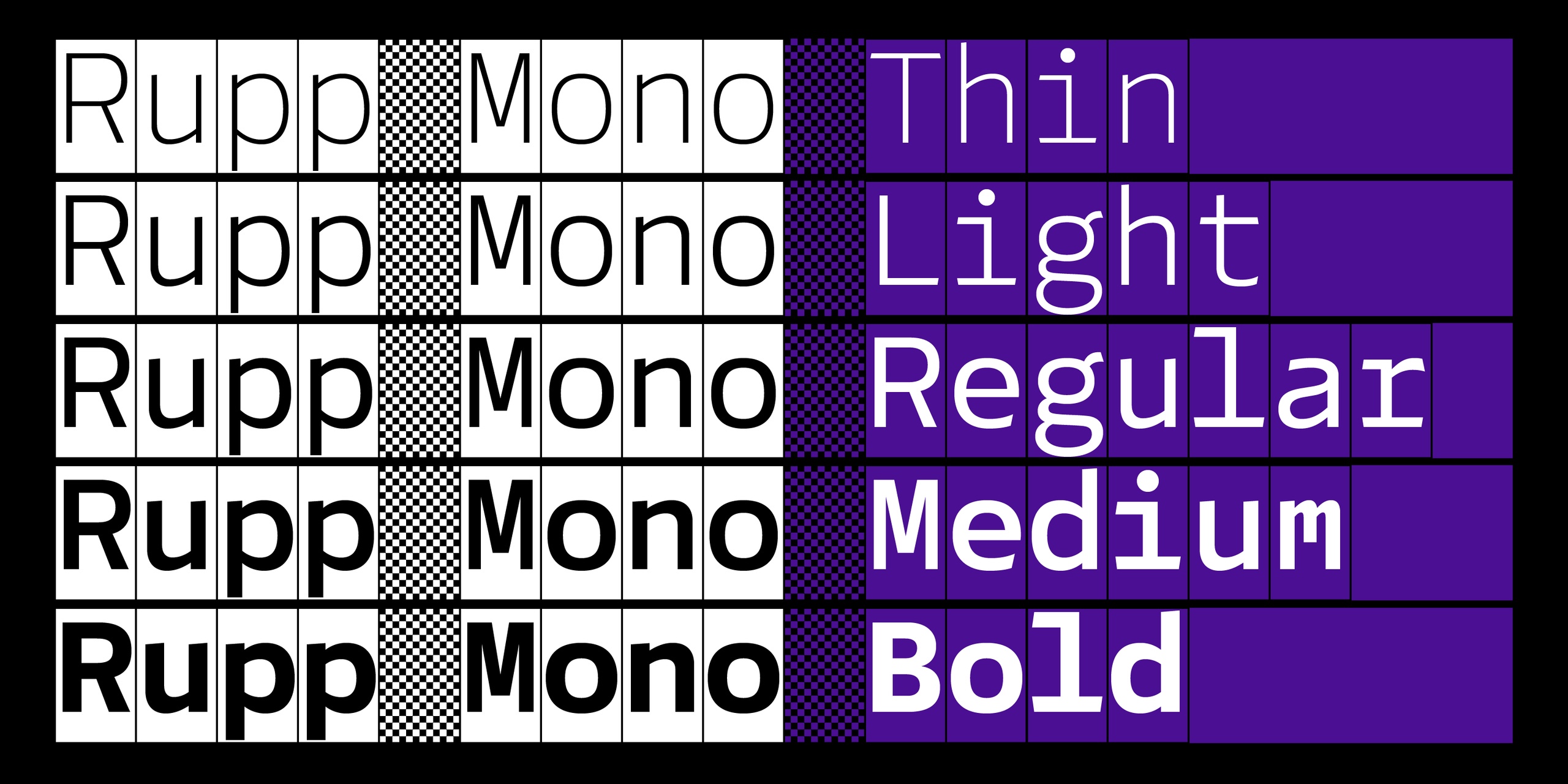
FR Rupp Mono Font
FR Rupp Mono Font is perfect for coding projects, technical documentation, programming interfaces, terminal applications, data visualization, scientific reports, financial statements, spreadsheet designs, retro computing themes, and modern tech branding.
FR Rupp Mono Font is exciting because it combines the precision of monospaced typography with contemporary design aesthetics, creating the perfect balance between functionality and style. This font brings clarity and order to complex information displays, making it ideal for technical applications where readability and character alignment are crucial. Its clean, geometric structure ensures excellent legibility at all sizes while maintaining a distinctive modern character.
FR Rupp Mono Font family includes regular, medium, bold, and light weights, along with italic variations, providing developers and designers with comprehensive options for creating hierarchical information systems and varied typographic expressions.
This exceptional monospaced typeface merges traditional typewriter functionality with cutting-edge digital design principles, making FR Rupp Mono Font Free Download an outstanding choice for contemporary technical and creative projects. The font's uniform character width ensures perfect alignment in code editors, tables, and data displays while its refined letterforms add sophistication to any technical interface.
Whether you're developing software applications, creating technical manuals, or designing data-heavy presentations, FR Rupp Mono Font delivers unmatched readability and professional appearance. The font excels in both screen and print environments, from high-resolution monitors to detailed technical documentation and programming books.
Developers and designers appreciate FR Rupp Mono Font for its ability to maintain character distinction even in dense text blocks, making debugging and code review processes more efficient. The font's careful spacing and proportions reduce eye strain during extended reading sessions while preserving the technical precision that monospaced fonts are known for.
Each character has been meticulously crafted to ensure maximum clarity and minimal confusion between similar letters and numbers, a crucial feature for programming and technical applications where accuracy is paramount.